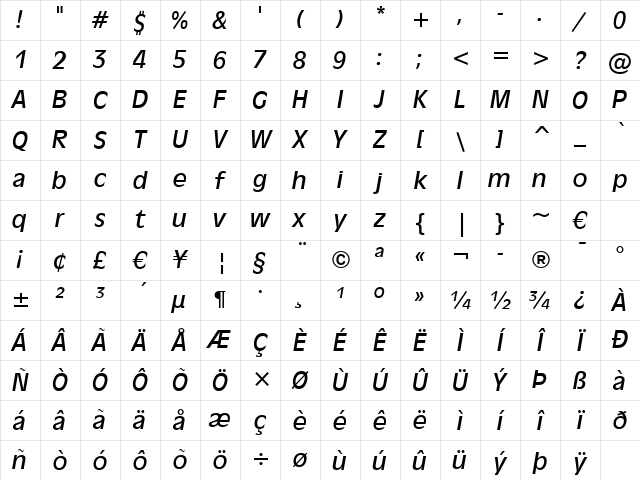
Incised901 BT Italic
Design Context for Incised901 BT
Incised901 BT is a composed and adaptable typeface that performs quietly and consistently across a wide range of design contexts. The slanted form adds forward momentum and visual energy.
Pro Tip: Use Incised901 BT for emphasis, pull quotes, and subheadings where its slanted energy can add rhythm to the layout.